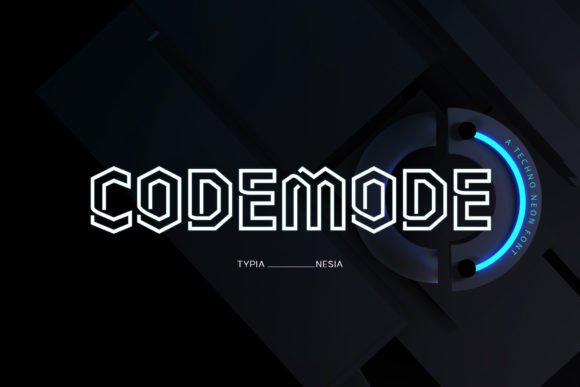
Codemode: The Neon Sans Font for Modern Branding
There's a specific kind of energy you want when a design needs to make an immediate impact. You're not looking for something quiet or traditional; you need a typeface that pulses with a modern, digital heartbeat. Enter Codemode, a hexagonal neon sans font built for exactly this moment. It’s not just a collection of letters—it's a design tool engineered to grab attention and hold it, blending clean geometry with a futuristic, luminous character.
The Anatomy of a Head-Turner: What Defines Codemode's Style
At its core, Codemode is a display font, meaning it's crafted for impact rather than extended reading. Its visual language is built on a few key pillars. First, the hexagonal structure gives each character a stable, almost crystalline foundation, moving away from the curves of traditional sans serifs. This geometric base is what provides that clean, sharp-edged feel. Second, the neon-inspired aesthetic isn't just a color effect; it's baked into the font's design through its uniform stroke weight and slightly condensed letterforms, suggesting the glow of a sign even in black and white. This combination creates a typeface that feels both technical and artistic, perfect for projects where you want to communicate innovation, energy, and a forward-thinking mindset.
Where Codemode Shines: Practical Applications Across Industries
Understanding a font's personality is one thing; knowing where to deploy it is where the real strategy begins. Codemode's bold character makes it a versatile asset for specific, high-visibility contexts.
Beyond Aesthetics: How the Right Typeface Strengthens Your Project
Choosing a font like Codemode is more than a stylistic choice; it's a functional one that can improve how your audience interacts with your work. A consistent visual language, starting with typography, is a cornerstone of professional presentation. When you use a distinctive font like Codemode across your logo, website headers, and social media graphics, you create a thread of visual consistency that makes your brand look cohesive and intentional.
This consistency directly feeds into brand recognition. People begin to associate the unique hexagonal shapes with your business or project. Furthermore, while it's a display font, its clean lines actually aid readability in short bursts—like a headline or a logo. The sharp edges and geometric structure prevent the letters from blurring together, making the word or phrase instantly legible. This clarity is what transforms a pretty design into an effective communication tool, boosting audience engagement by ensuring your message is received, not just seen.
Smart Implementation: Pairing, Licensing, and Final Checks
Integrating a strong display font into your workflow requires a bit of strategy to avoid visual chaos. Here’s some practical advice for using Codemode effectively.
Master the Art of Font Pairing. Codemode has a strong personality. To let it shine without overwhelming the viewer, pair it with a more subdued companion. A classic, light-weight sans serif like Montserrat or a clean serif like Lora can handle body copy beautifully, allowing Codemode's headlines to command attention. Avoid pairing it with another bold or decorative script font, as they will compete for focus.
Understand Commercial Licensing. This is non-negotiable for any professional use. Before downloading, confirm the license covers your specific project—whether it's for a client, for merchandise you plan to sell, or for a digital product. Reputable foundries are clear about their terms, ensuring you can use the font with confidence and avoid legal headaches down the line.
In the end, a font is a bridge between your idea and your audience. Codemode, with its futuristic yet accessible design, offers a strong, modern voice for projects that refuse to blend into the background. It’s a specialized tool in your design assets toolkit, ready to build brand identity, captivate on social media, and give your print materials a sharp, professional edge. When your goal is to communicate innovation and energy, this typeface is built to deliver.